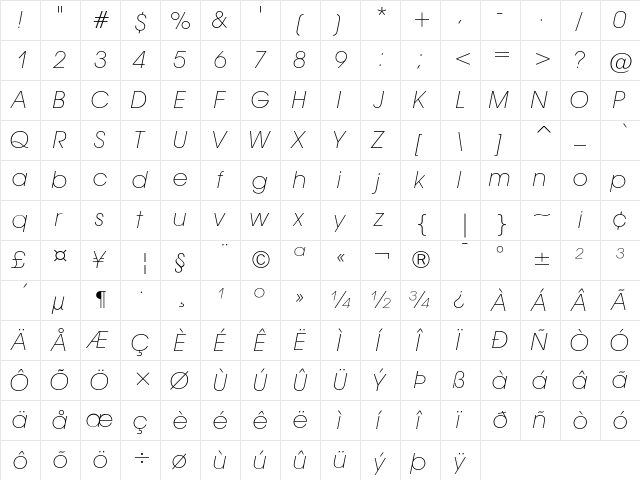
ITC Avant Garde Gothic Extra Light Oblique Font Preview
| Style | Extra Light Oblique |
Design Context for ITC Avant Garde Gothic Typeface
ITC Avant Garde Gothic takes a clean, functional approach — its unadorned letterforms prioritise legibility and work reliably across screen and print environments. Its italic angle brings a sense of urgency and motion to the letterforms. The delicate stroke weight brings airiness and refinement to layouts.
Ideal for fashion and beauty branding, minimal editorial layouts, and premium digital experiences.
Font Pairing: Pair ITC Avant Garde Gothic with a medium or bold serif for headlines — the weight contrast creates an elegant, high-end feel.
Pro Tip: Avoid using ITC Avant Garde Gothic at very small sizes where its slender strokes can disappear. It performs best at medium to large sizes.